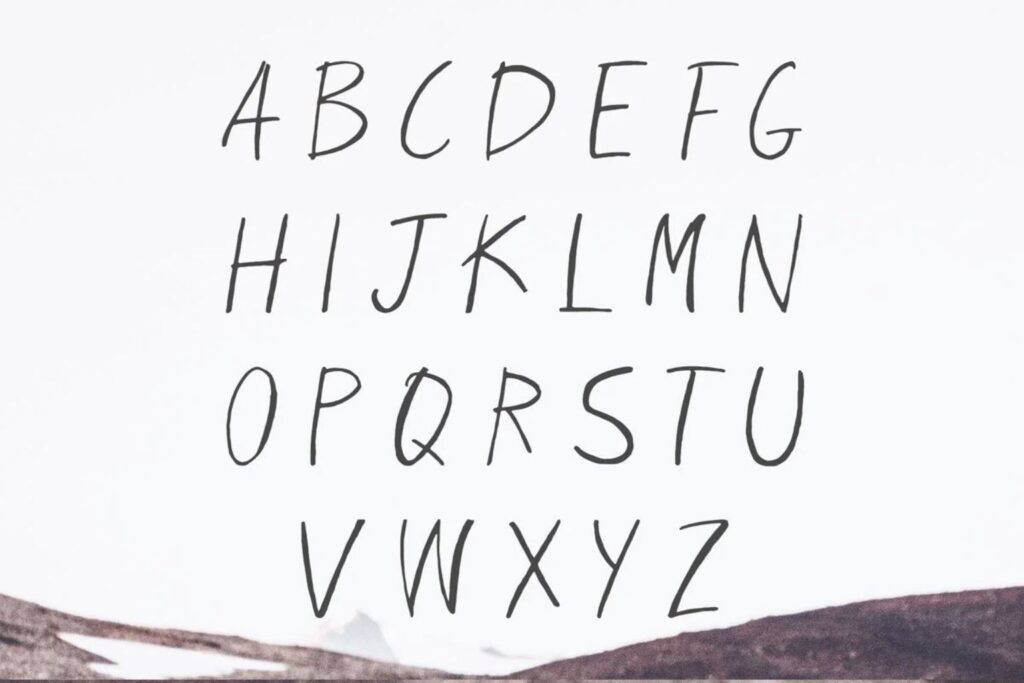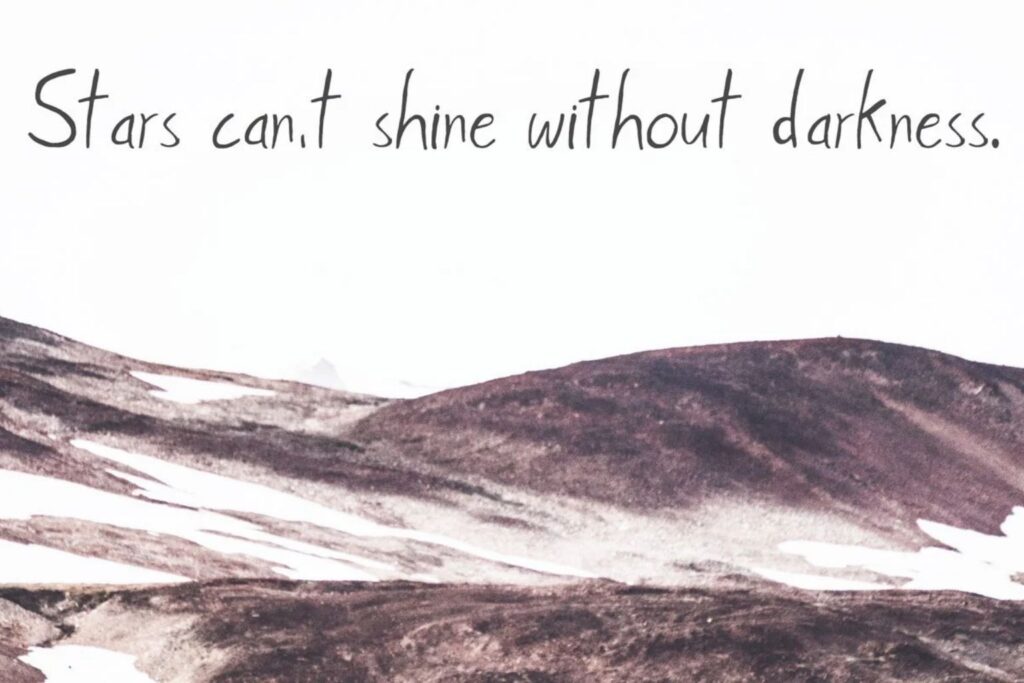
Eadrifd Handmade Font
Introducing Eadrifd Handmade Font is a modern brush-style font that looks like it was written by hand. It adds a special touch to your work, making it feel more personal. The font has all sorts of characters – from uppercase and lowercase letters to numbers and symbols.
You can use Eadrifd Font for many different things. It’s great for making greeting cards, branding stuff like business cards, and even wedding postcards. It’s also good for quotes, posters, books, and marketing stuff like magazines. Basically, it’s a good fit for a lot of creative projects.